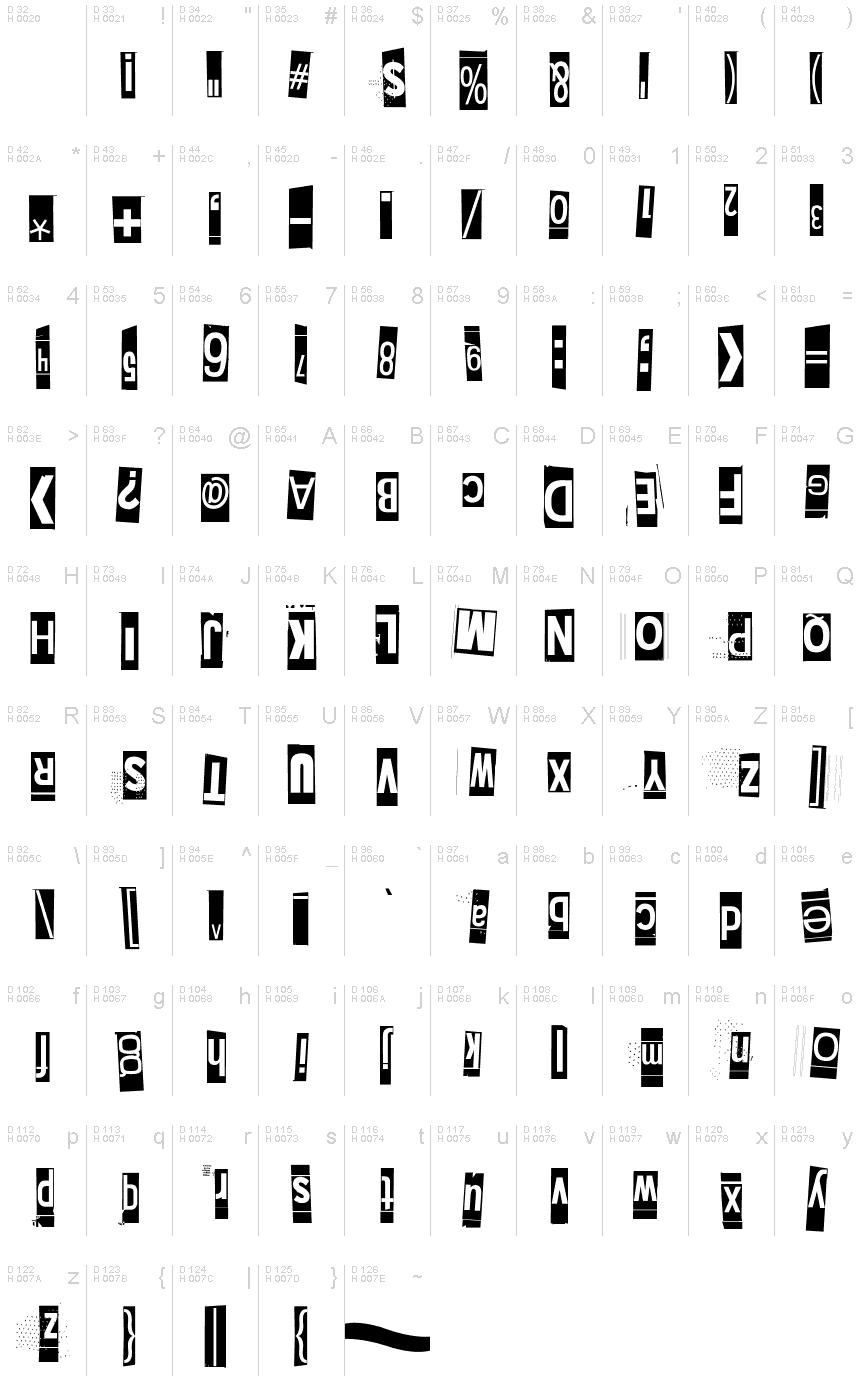
Extraoin Zhurdlyou Upside Down
Looking for a font that's anything but ordinary? Look no further than Extraoin Zhurdlyou Upside Down, the latest creation from designer Junkohanhero. This negative display font is perfect for projects that demand attention, with its distorted style and semi-light weight making it stand out from the crowd. Whether you're working on a bold new branding campaign or simply want to add some flair to your next project, Extraoin Zhurdlyou Upside Down is sure to make an impact. So why settle for boring typography when you can embrace the unique and unexpected with this one-of-a-kind typeface?